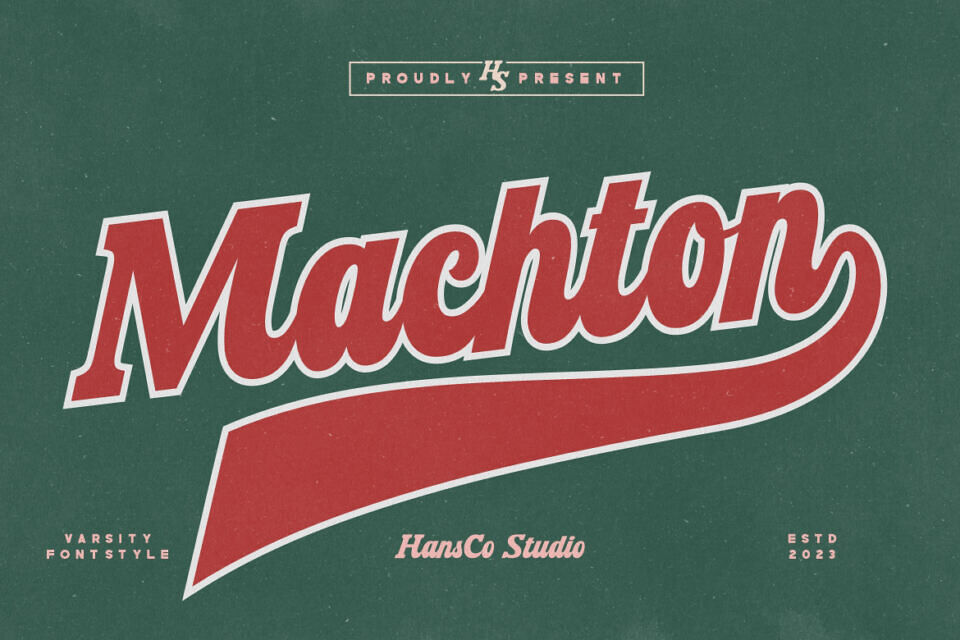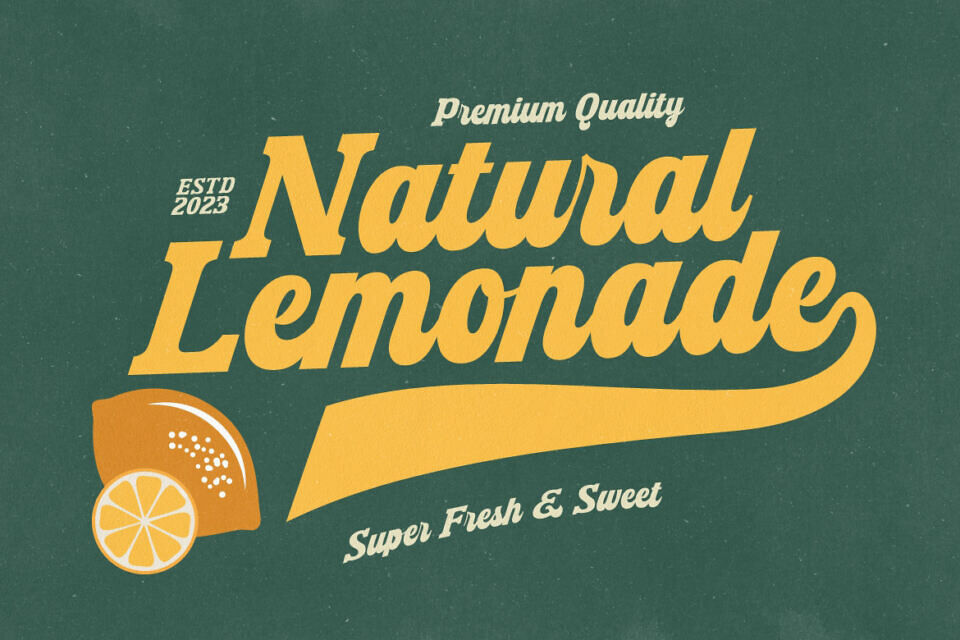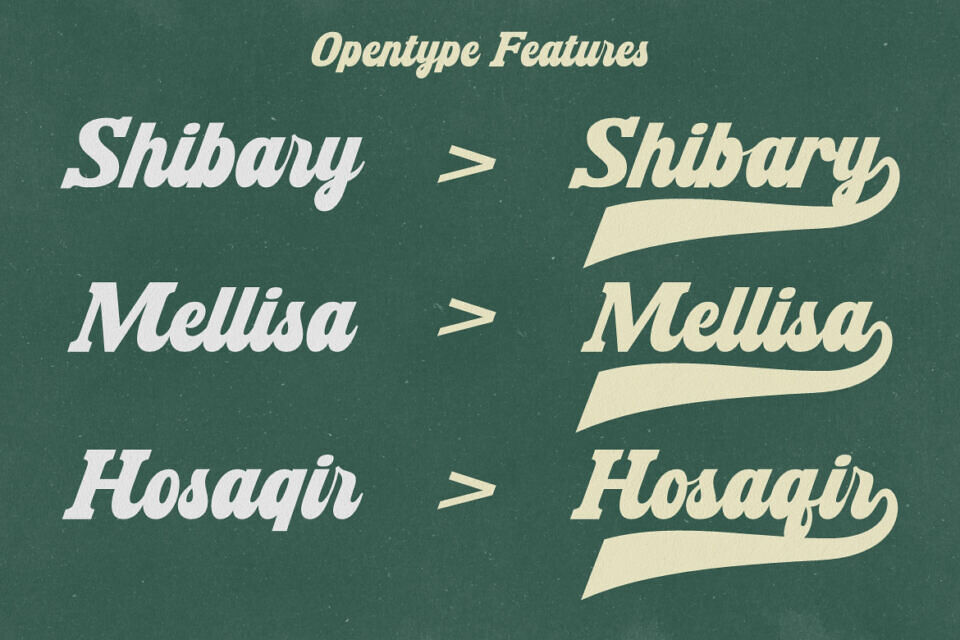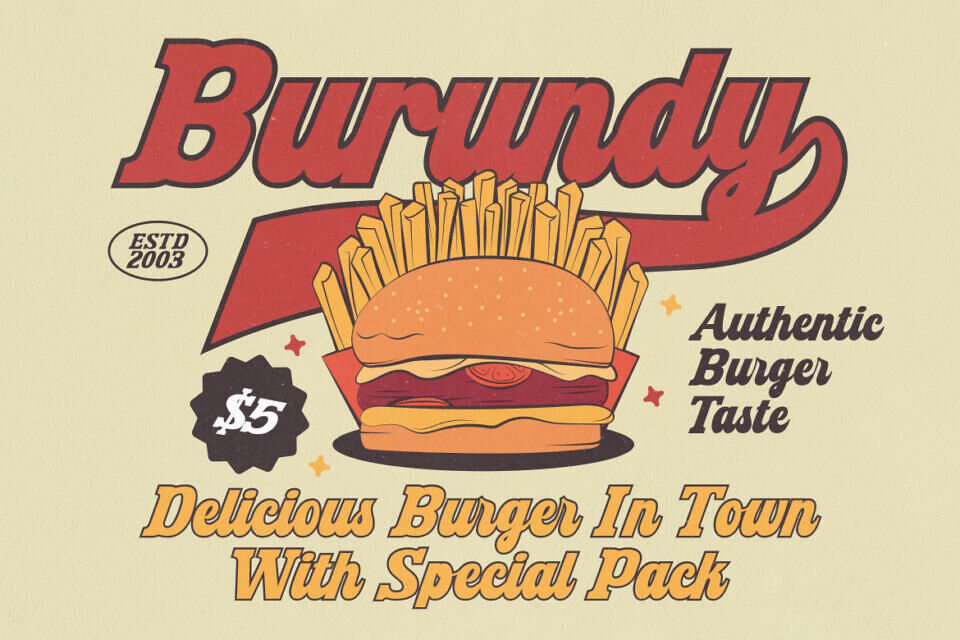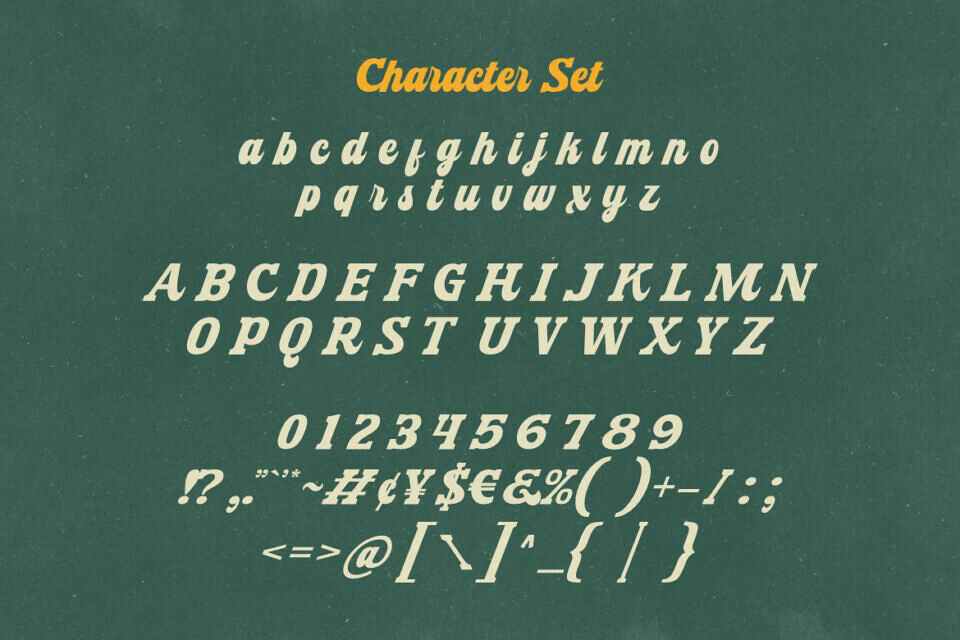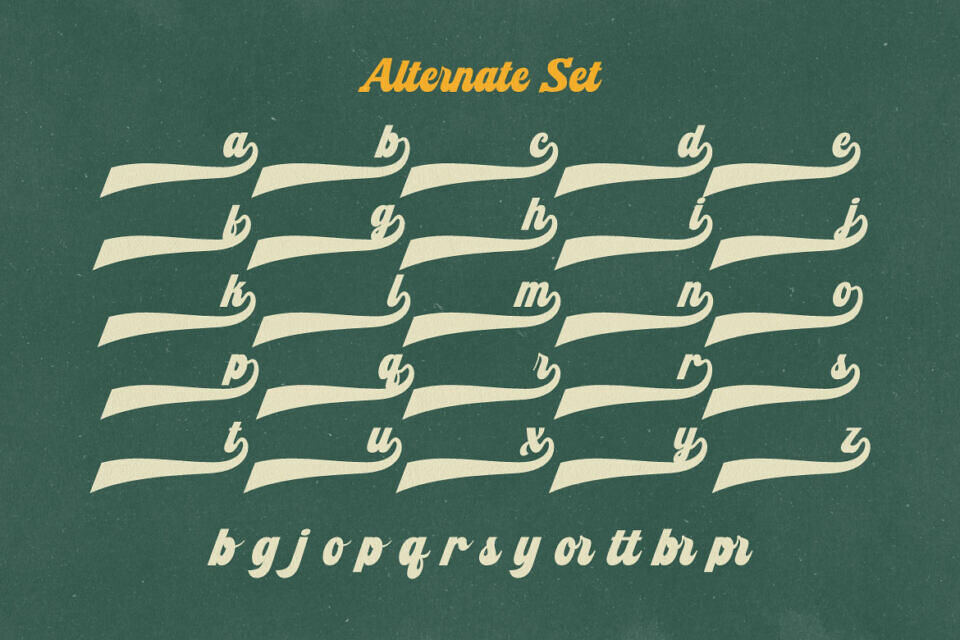
Machton Font
Machton Font is a Varsity / Jersey font style. Elevate your design projects to new heights with our premium digital fonts tailored for Canva and Cricut users. Whether you’re designing for personal pleasure or pursuing a professional endeavor, our diverse selection of high-quality fonts will help you bring your creative visions to life.
Designed by: HansCo